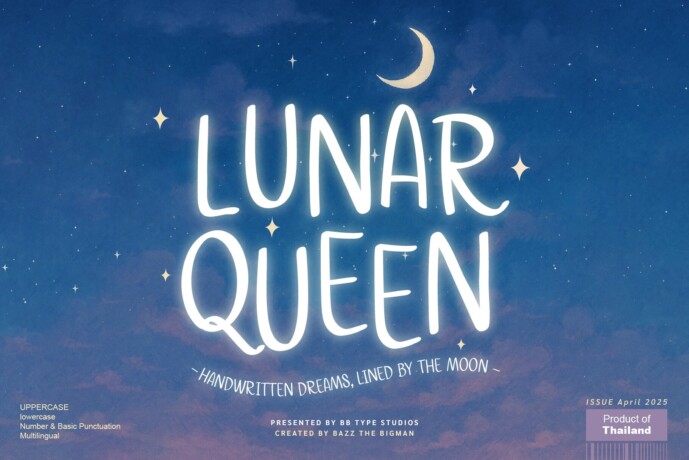
Lunar Queen Font – an engaging handwritten font that is as playful as it is inviting. This ultra-versatile typeface adds a personal touch to everything, be it crafts, digital creations, book cover designs, presentations, or even bespoke greeting cards. With an appeal that’s universal, Lunar Queen seamlessly fits into any project you’re working on, making it your trusted partner for all design endeavors and celebrations. Embrace the versatility and charm of Lunar Queen, a font that effortlessly elevates and personalizes any occasion.